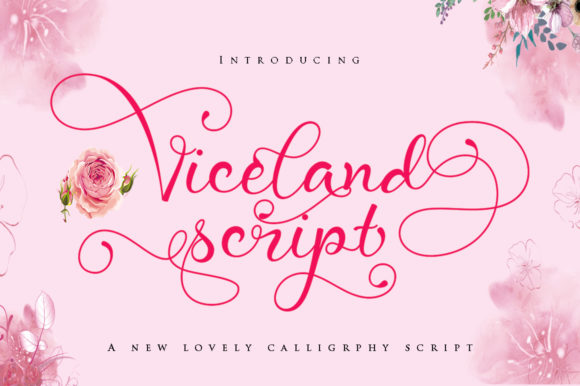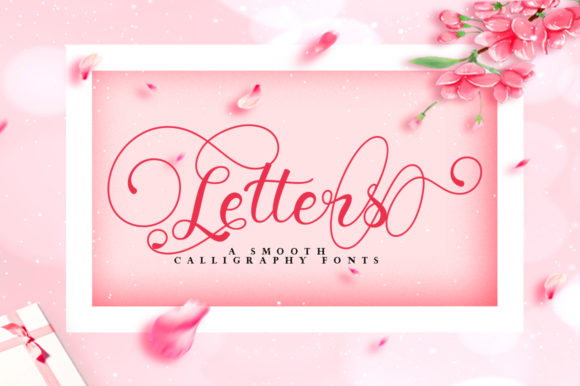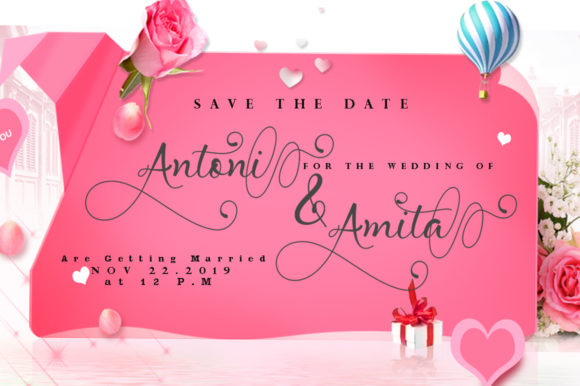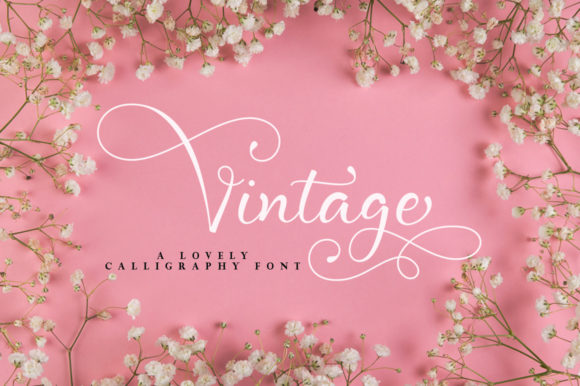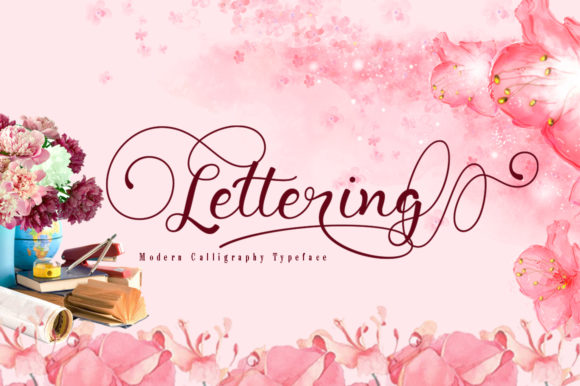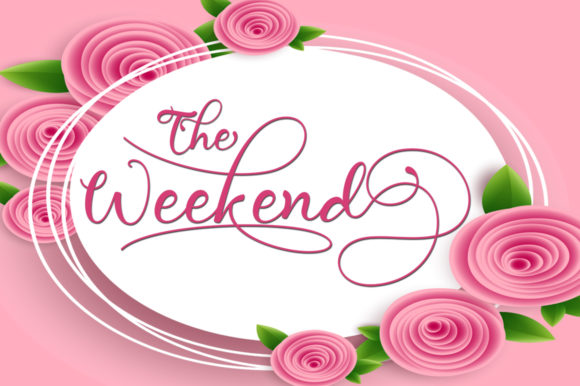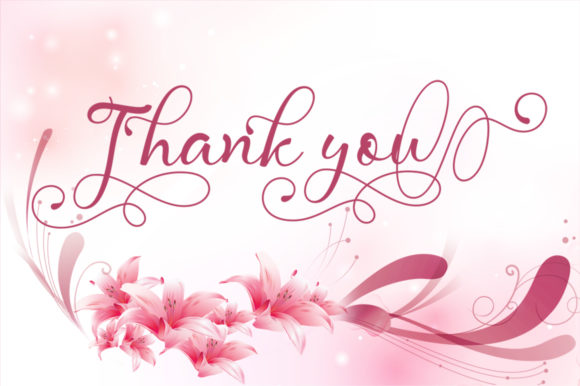
Viceland Font
About Viceland Font
With its varied baselines and bold swashes, Viceland is designed to convey elegance and style. It’s smooth, clean and romantic, and works perfectly for logos, magazines, menus, books, invitations, wedding / greeting cards, packaging, labels, t-shirts etc.